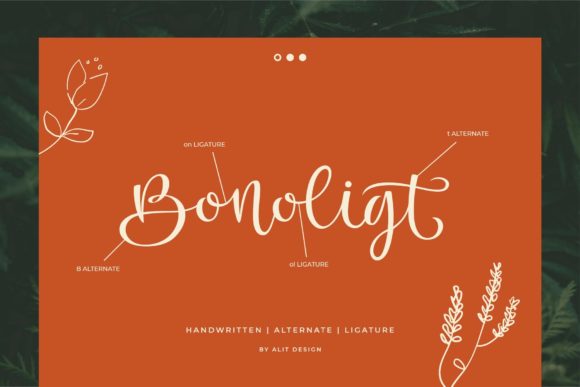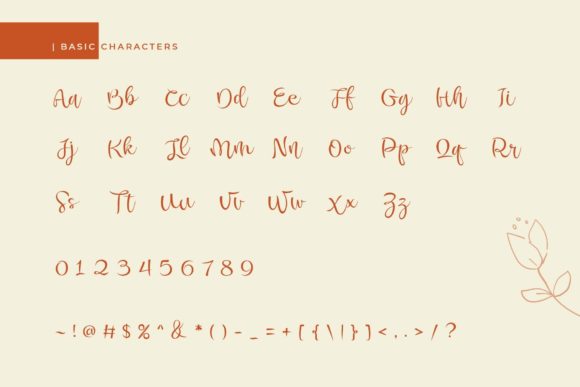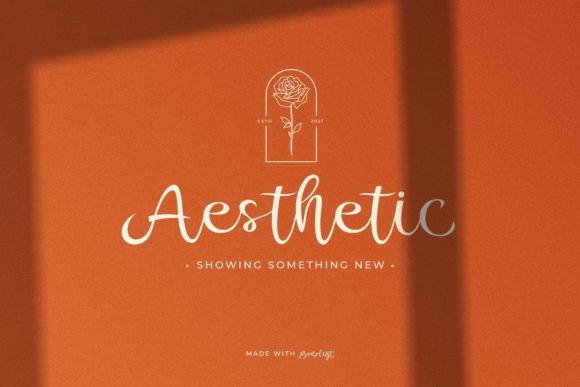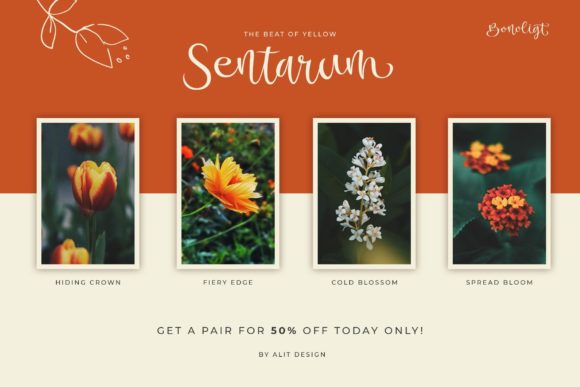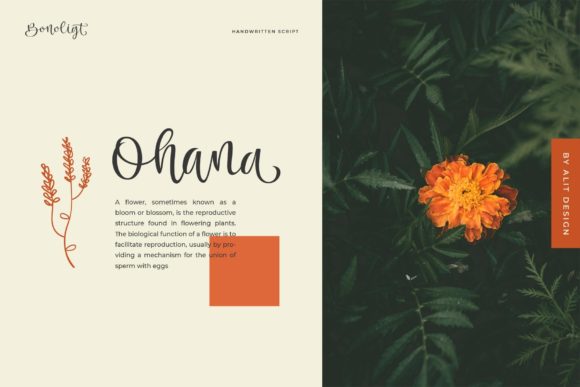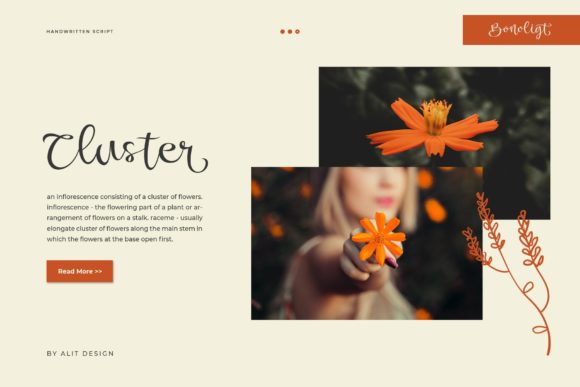
Introducing Bonoligt Font: A Charming Script Font for Designers and Crafters
Are you looking for a font that can add a touch of playfulness and elegance to your designs? Look no further than the Bonoligt Font! This lovely script font features charming, playful characters that seem to dance along the baseline, making it perfect for a variety of design projects. In this article, we’ll take a closer look at the Bonoligt Font, its features, and how it can be used to elevate your designs.
What is Bonoligt Font?
Bonoligt is a script font that boasts a unique and charming personality. Its characters are designed to be playful and whimsical, with a sense of movement and energy. The font is perfect for designs that require a touch of elegance and sophistication, such as wedding invitations, branding, packaging, and more.
Key Features of Bonoligt Font
So, what makes Bonoligt Font so special? Here are some of its key features:
- Charming and Playful Characters: The font features charming, playful characters that seem to dance along the baseline. This gives your designs a sense of movement and energy that’s sure to capture the attention of your audience.
- Ligatures and Glyphs: Bonoligt Font comes with a range of ligatures and glyphs that allow you to add an extra touch of elegance and sophistication to your designs. With PUA encoding, you can access these glyphs and ligatures easily, making it simple to create beautiful and unique designs.
Uses for Bonoligt Font
Bonoligt Font is a versatile font that can be used for a wide range of design projects. Here are some ideas to get you started:
- Wedding Invitations: The elegant and playful characters of Bonoligt Font make it perfect for wedding invitations, save-the-date cards, and other wedding-related designs.
- Branding and Packaging: The font’s unique personality makes it ideal for branding and packaging designs that require a touch of elegance and sophistication.
- Stationery and Paper Crafts: Bonoligt Font is perfect for stationery and paper crafts, such as greeting cards, journals, and planners.
- Digital Designs: The font can also be used for digital designs, such as social media graphics, blog headers, and website designs.
Why Choose Bonoligt Font?
So, why should you choose Bonoligt Font for your designs? Here are just a few reasons:
- Unique and Eye-Catching: Bonoligt Font is a unique and eye-catching font that will help your designs stand out from the crowd.
- Elegant and Sophisticated: The font’s elegant and sophisticated personality makes it perfect for designs that require a touch of refinement and luxury.
In conclusion, Bonoligt Font is a charming script font that is perfect for designers and crafters looking to add a touch of elegance and playfulness to their designs. With its PUA encoding, charming characters, and range of ligatures and glyphs, Bonoligt Font is a versatile font that can be used for a wide range of design projects. Whether you’re creating wedding invitations, branding and packaging designs, or digital designs, Bonoligt Font is a great choice. So why not give it a try and see how it can elevate your designs?